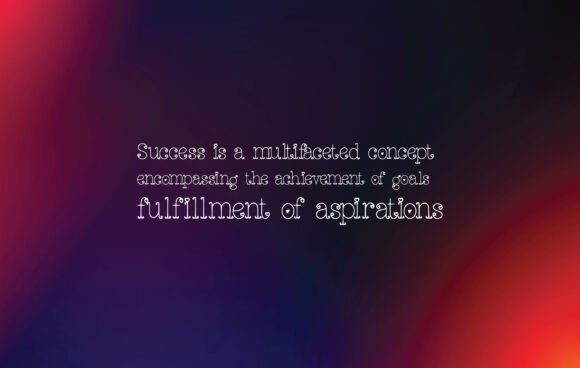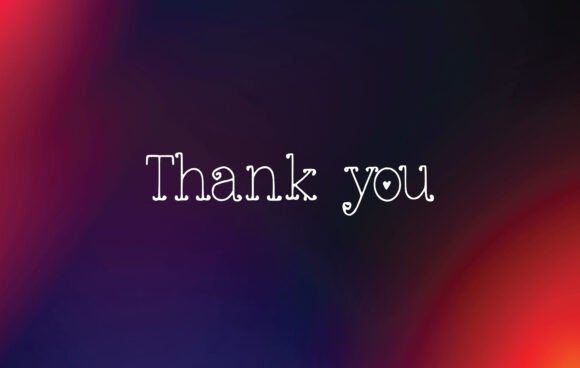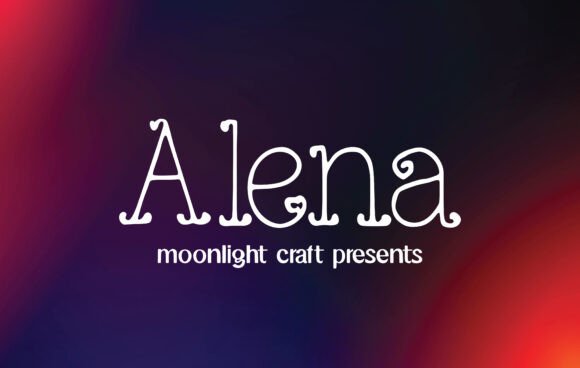
Introducing Alena Font: Elevate Your Creative Projects with Elegance
Are you a designer, crafty enthusiast, or a business owner looking for a font that can add a touch of sophistication and charm to your creative projects? Look no further than Alena Font, a lovely and beautiful handwritten font that has the potential to take your ideas to new heights.
The Beauty of Alena Font
Alena Font is a stunning example of handwritten typography, boasting a unique and elegant style that is sure to capture the attention of your audience. Its beautiful, flowing lines and curves make it perfect for a wide range of applications, from logos and branding to quotes and creative writing projects.
Why Choose Alena Font?
So, what sets Alena Font apart from other fonts on the market? Here are just a few reasons why it’s the best choice for your creative projects:
• Elegant and Sophisticated: Alena Font exudes elegance and sophistication, making it perfect for high-end branding, luxury products, and creative projects that require a touch of refinement.
• Versatile: Whether you’re creating a logo, crafting a social media post, or designing a brochure, Alena Font is versatile enough to adapt to any format or style.
• Easy to Read: Despite its elegant and cursive nature, Alena Font is surprisingly easy to read, making it perfect for body text, headings, and titles.
• Unique: With its distinctive and one-of-a-kind style, Alena Font is sure to help your creative projects stand out from the crowd.
Alena Font is a dream come true for designers and crafters who are looking for a font that can help them add a personal touch to their work. Whether you’re creating:
• Logos: Use Alena Font to create a stunning logo that reflects your brand’s personality and style.
• Branding: Add a touch of elegance to your branding materials, including business cards, letterheads, and brochures.
• Quotes: Create inspiring and eye-catching quotes that are perfect for social media, blogs, and websites.
• Creative Writing: Use Alena Font to add a touch of personality to your creative writing projects, including poetry, short stories, and novels.
Tips for Using Alena Font
To get the most out of Alena Font, here are a few tips to keep in mind:
• Experiment with Sizes: Alena Font looks great in a variety of sizes, from large headings to smaller body text.
• Play with Colors: Try pairing Alena Font with different colors to create a unique and eye-catching effect.
• Mix and Match: Combine Alena Font with other fonts to create a unique and visually appealing typography.
In conclusion, Alena Font is a beautiful and elegant handwritten font that has the potential to elevate your creative projects to new heights. With its unique style, versatility, and ease of use, it’s the perfect choice for designers, crafters, and business owners who are looking for a font that can add a touch of sophistication and charm to their work. So why wait? Download Alena Font today and start creating stunning creative projects that are sure to impress!